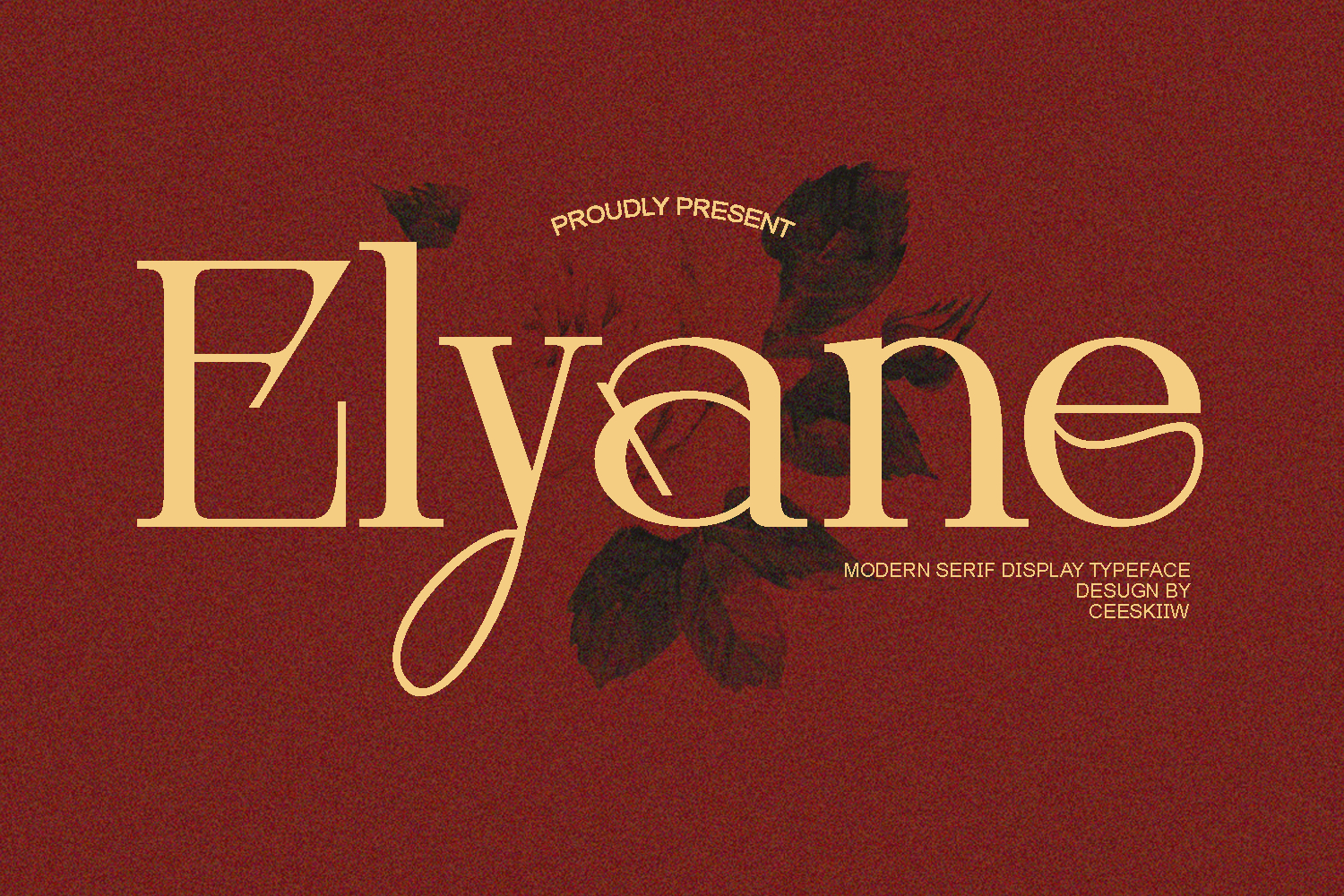
Elyane - Modern Elegant Serif Font
Elyane is a sophisticated modern serif display font, graceful curves, and artistic decorative details. Designed for luxury branding, fashion editorials, beauty packaging, and premium visual identities.
This font is a high-fashion modern serif display typeface and elegant editorial styling. The letterforms feature dramatic contrast, refined curves, and artistic details that evoke luxury magazines, couture branding, and premium product packaging.